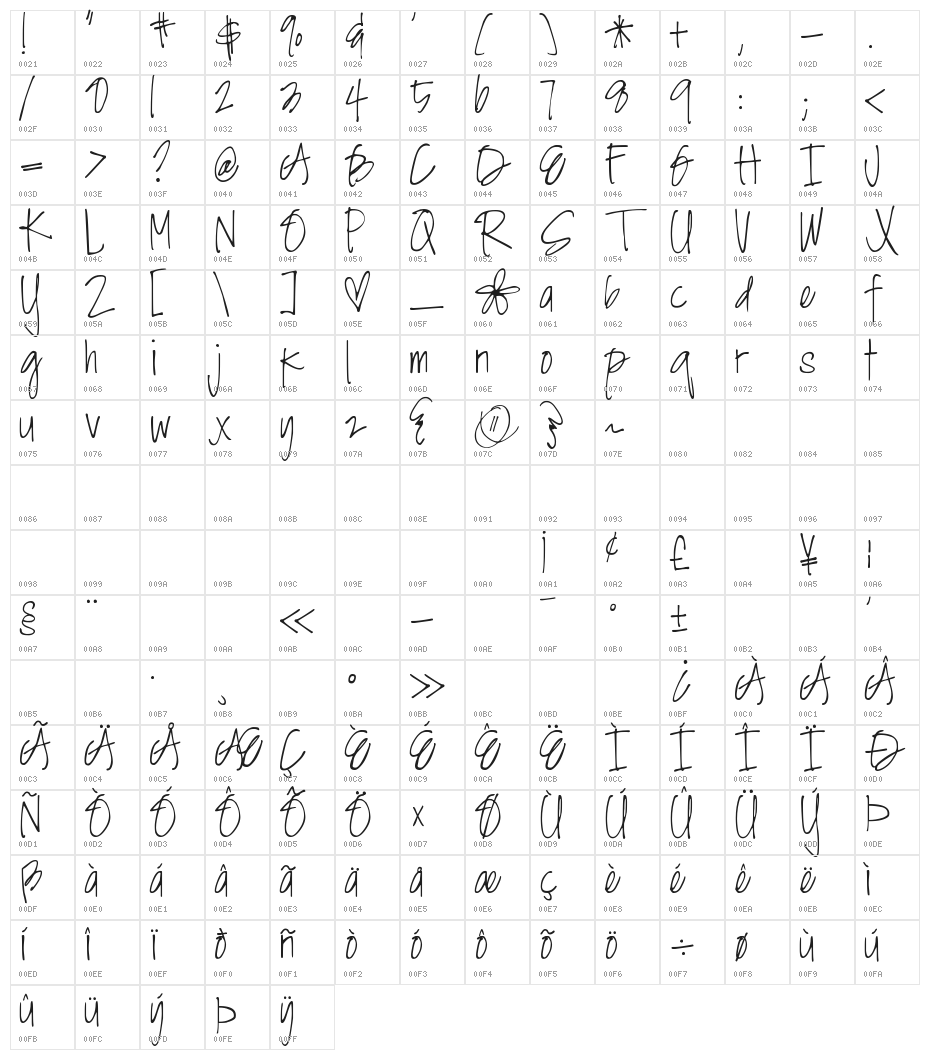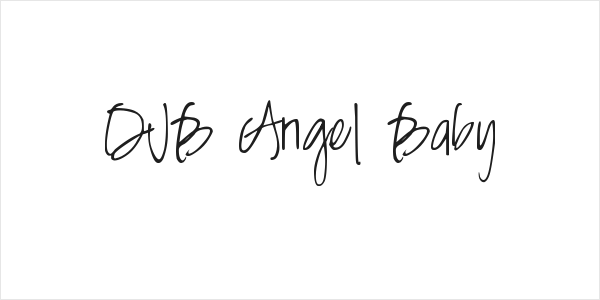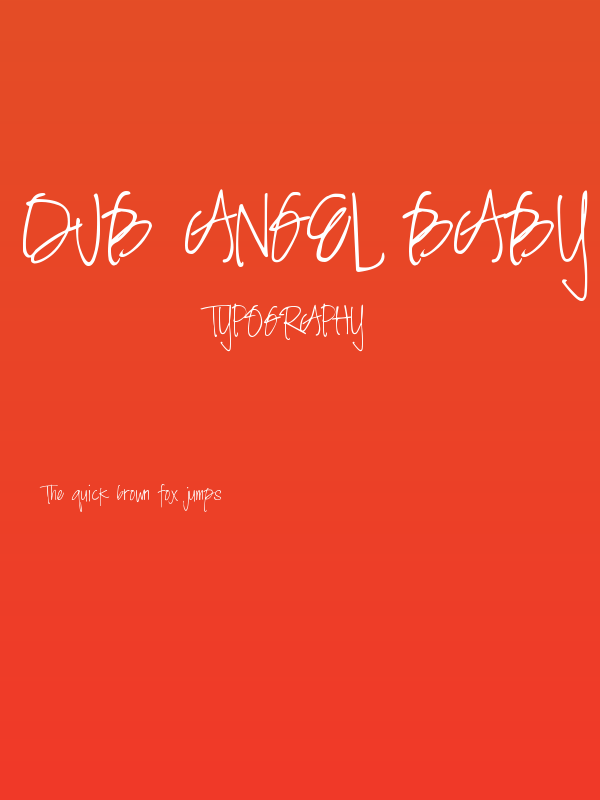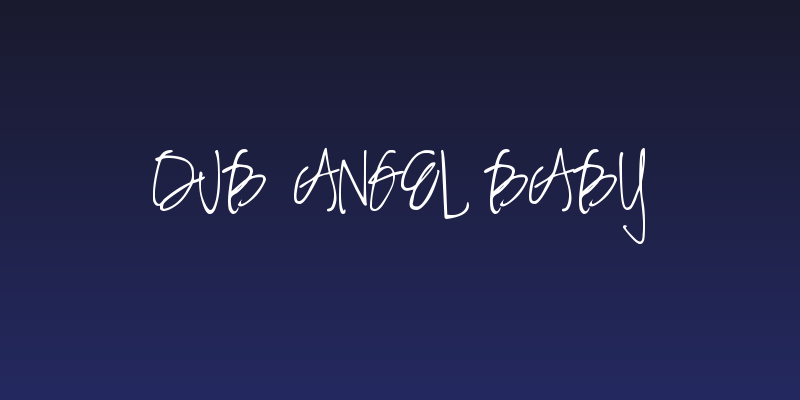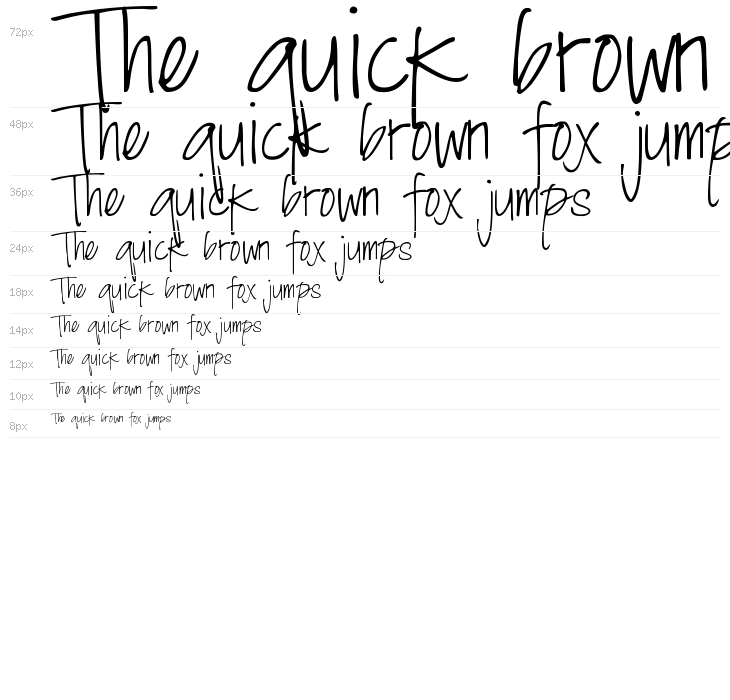
DJB Angel Baby Font
DJB Angel Baby Description
| Proposed Projects | Ideal for greeting cards, invitations, children's books, and playful branding projects. |